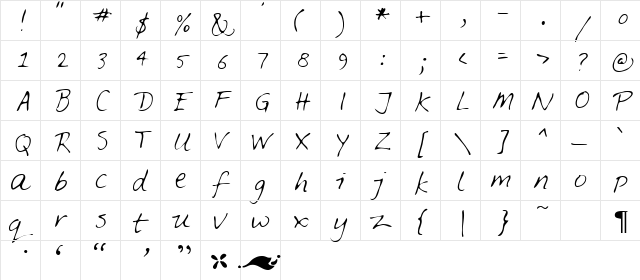
Feltpen Regular
Design Context for Feltpen Typeface
Feltpen takes a measured approach to typography — its balanced proportions and neutral character make it a reliable workhorse for both digital and print work.